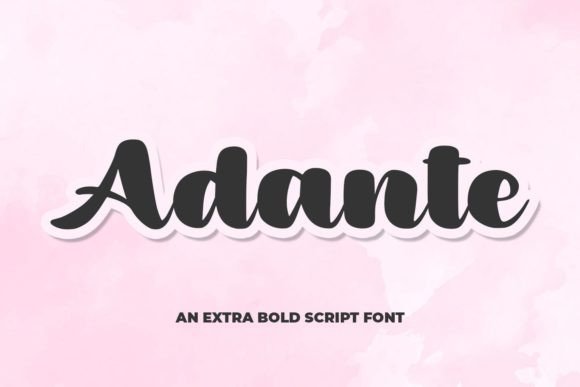
Step into a world of elegance and sophistication with Adante Font, the ultimate script font for your wedding place cards. This meticulously crafted font, designed by the talented Abodaniel, exudes timeless beauty and captivating charm, promising to transform your special day into an unforgettable occasion.
With its bold, handwritten strokes and dynamic flow, Adante Font adds a touch of classic romance and personal flair to your wedding stationery. Imagine your guests' delight as they receive place cards adorned with their names, written in this exquisite script. The font's strong presence and confident lines create a sense of importance and celebration, setting the tone for a truly memorable event.
Beyond its aesthetic appeal, Adante Font is also incredibly versatile, lending itself effortlessly to a variety of design styles and applications. Whether you envision a whimsical, bohemian soirée or a grand, opulent affair, this font seamlessly adapts, enhancing your vision and adding a layer of sophistication.
For those seeking a font that radiates timeless elegance, Adante Font stands as the perfect choice. Its ability to convey both strength and grace makes it ideal for creating place cards that are both visually stunning and deeply meaningful. Each name, meticulously handwritten in this exquisite script, becomes a cherished keepsake, a tangible reminder of the love and joy shared on your special day.
Embrace the beauty and versatility of Adante Font, and let it elevate your wedding place cards to new heights of sophistication and charm. Allow your guests to experience the magic of this captivating font, and create memories that will last a lifetime.